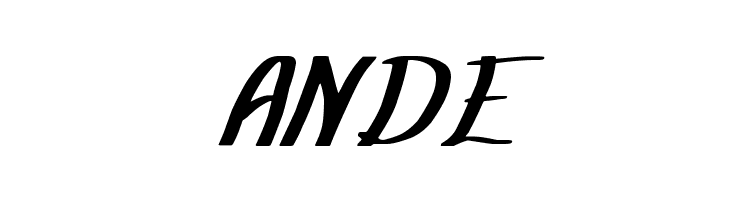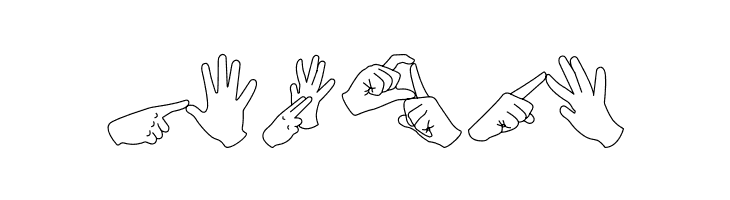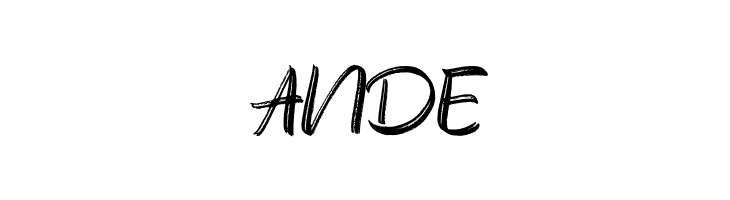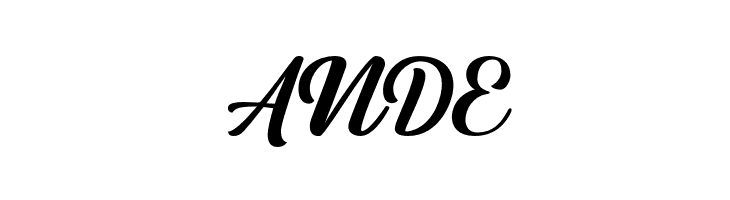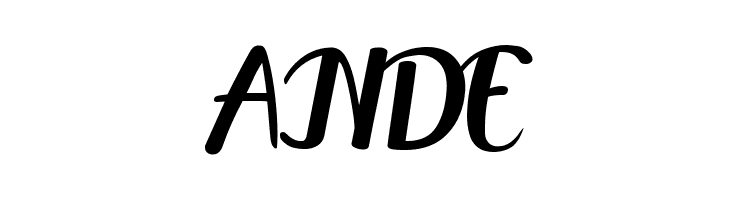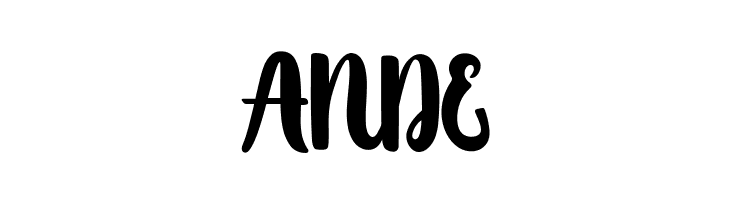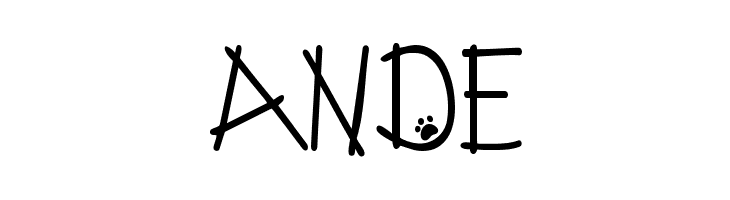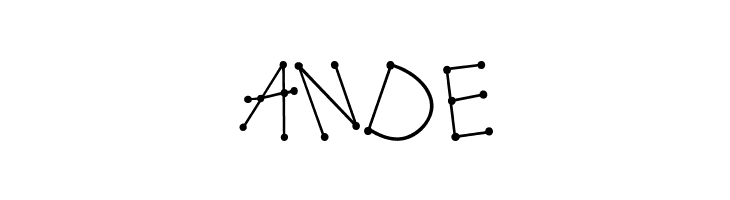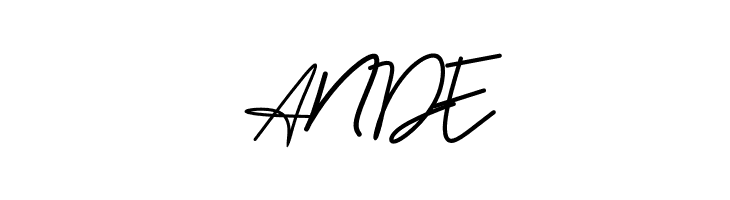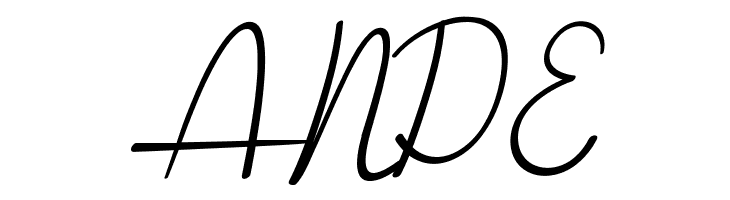
• Ausion Personal Use ExtraCAPS
A modern, elegant font with clean lines and excellent readability.
• Ausion Personal Use Light
A clean, modern sans-serif font with a minimalist design.
• Ausion Personal Use LightCAPS
A clean, modern font with uniform stroke width and excellent readability.
• Ausion Personal Use RegularCAPS
A modern sans-serif font with clean lines and a professional appearance.
• AuslanFingerSpelling
Minimalist line-art font using hand shapes for each character.
• Aussie House Demo
A dynamic script font with elegant curves and medium contrast.
• Aussie Ocean
A flowing, cursive font with elegant loops and curves.
• AussieOcean
A lively, flowing script font with elegant cursive letters and intricate loops.
• Austein Script
An elegant script font with smooth, flowing strokes and a cohesive cursive style.
• Austein-Script
A flowing, elegant script font with high contrast and interconnected letters.
• Austellia
A bold, expressive brush-style font with dynamic strokes.
• Austera Simple tfb
A dynamic and flowing script font with elegant curves and a slight slant.
• Austere
A bold, dynamic font with a futuristic and sporty style.
• Austhatic Script
A bold, expressive script font with flowing, cursive letterforms.
• Austhin